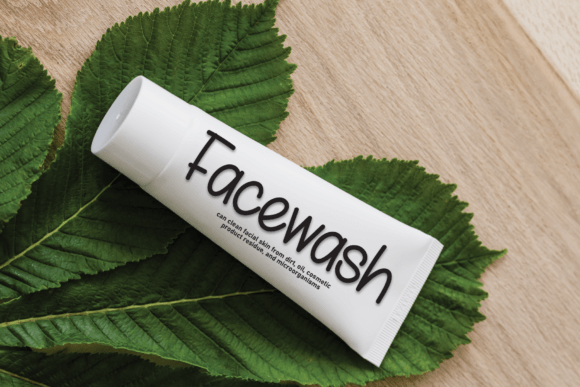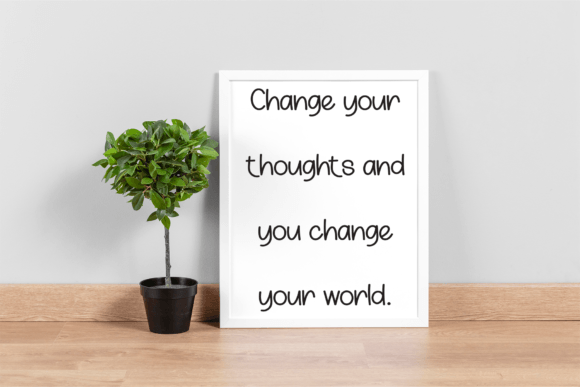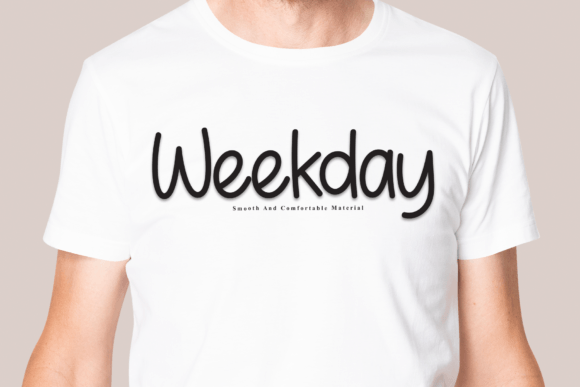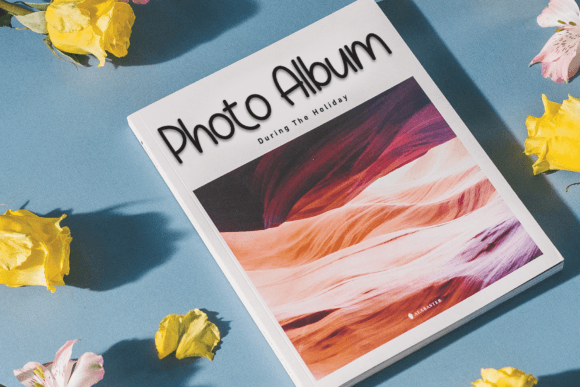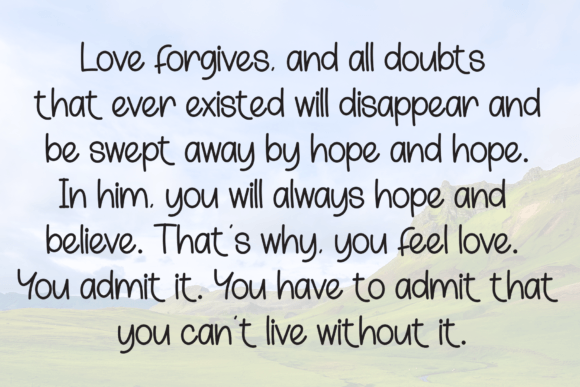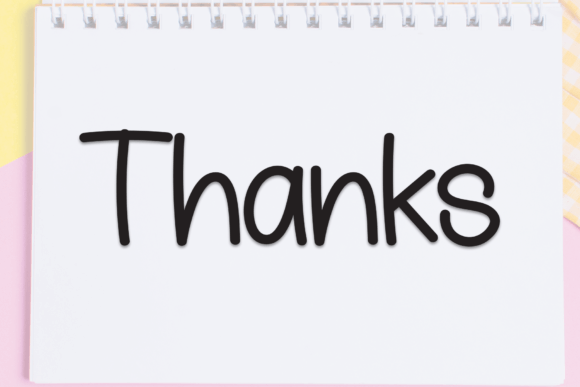
Introduction to Notes Agatha Font
As a designer, you know that the right font can make all the difference in a project. I still remember the moment when I stumbled upon the perfect handwritten font for a creative project – it was love at first sight! The gentle curves and natural flair of the font added a touch of personality that took the design to a whole new level. That’s when I discovered the Notes Agatha Font, a sweet and friendly handwritten font that has since become a staple in my design arsenal.
With its unique style and high-quality design, the Notes Agatha Font is a valuable resource for any creative project. Whether you’re working on a branding project, a social media campaign, or a simple blog post, this font is sure to add a touch of warmth and personality. And the best part? It’s available for free download, making it an accessible design resource for designers of all levels.
One of the things that sets the Notes Agatha Font apart is its versatility. It’s perfect for a wide range of designs, from digital projects with transparent backgrounds to printed materials like business cards and brochures. With the Notes Agatha Font, the only limit is your imagination!
Key Features of Notes Agatha Font
- High-quality, elegant script font ideal for creative projects, such as invitations, quotes, and watercolor designs.
- Unique, handwritten design with a transparent background, making it perfect for layered designs and backgrounds.
- Perfect for designers and artists looking for a design resource that adds a touch of sophistication and elegance to their work.
- Comes with a range of ligatures and swashes, allowing for endless creative possibilities and customization options.
Honest Review: Notes Agatha Font
I recently had the chance to work with the Notes Agatha Font, and I must say it’s a solid addition to any designer’s toolkit. As a free download, I was expecting a lackluster result, but this font surprised me with its high quality and versatility.
What works well is its creative flair – it’s perfect for those looking to add a unique touch to their project. The transparent background option is also a huge plus, allowing for seamless integration into various design environments.
- ✨ Wide range of applications: from digital displays to print materials
- ✨ Perfect for creative projects requiring a personal touch
- ✨ Transparent background option for easy integration
However, I did notice a few limitations: the font may not be as legible in smaller sizes, and some characters could use more refinement. But overall, these are minor complaints in an otherwise solid font.
Overall, I’m impressed with the Notes Agatha Font. It’s a great free resource for designers looking to add some personality to their projects. While it may not be perfect, it’s definitely worth considering for your next creative project.
Notes Agatha Font
The Notes Agatha Font is a free download high quality design resource ideal for any creative project. With its unique style and transparent background, it can be used in a variety of applications to add a touch of elegance and sophistication.
Use the Notes Agatha Font in combination with other design elements, such as images and graphics, to create a cohesive and visually appealing design. Experiment with different font sizes and styles to add emphasis and hierarchy to your design.
The Notes Agatha Font is ideal for use in creative projects, such as:
- Social media graphics and advertisements
- Document design and formatting